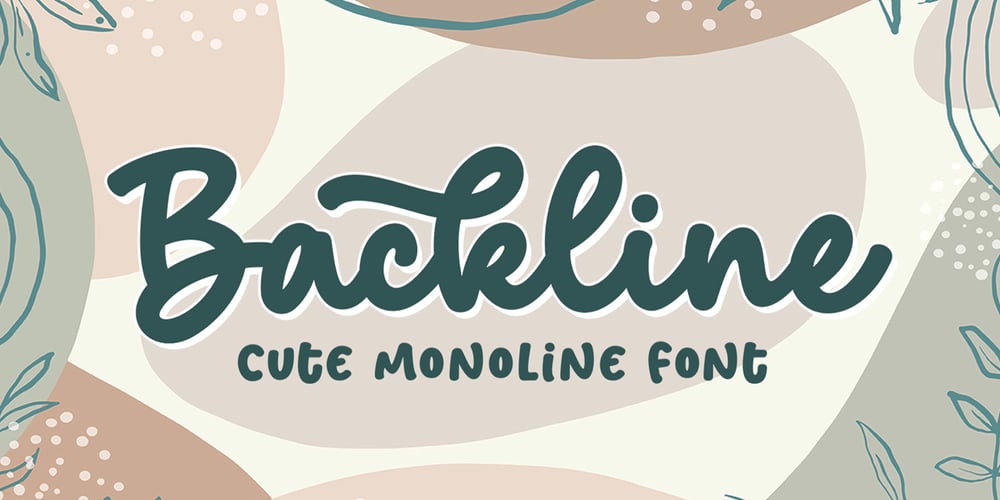
Backline
Backline font
Backline Font Family was designed by Rangga Subekti and published by Subectype. Backline contains 1 styles and family package options. Backline is a monoline script font with an cute style. It has good readability and is perfect for logos, invitations, wedding, signatures, and much more!What’s Included :- Kind Heart Font Script – Multilingual Support- AlternatesI hope you enjoy this font.Thank You, Subectype